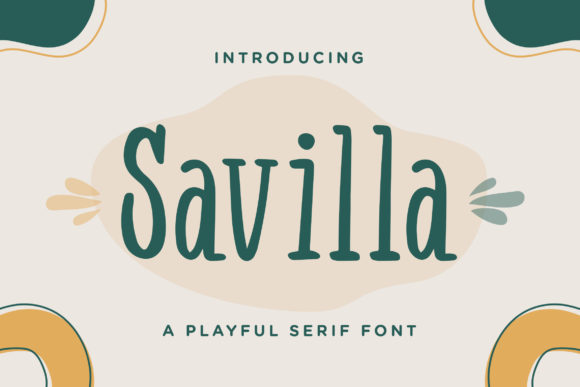
Step into the enchanting world of Savilla, a captivating serif font that will ignite your creativity and leave a lasting impression on all who behold it. Its exquisite curves and playful flourishes dance before your eyes, evoking a sense of wonder and delight. Whether you are a seasoned designer seeking to craft unforgettable movie posters or a DIY enthusiast eager to add a touch of elegance to your projects, Savilla is the perfect companion for your artistic endeavors.
With its timeless beauty and versatile nature, Savilla transcends the boundaries of traditional fonts. Its refined lines and delicate serifs lend a touch of sophistication to any design, while its playful undertones inject a spark of whimsy and charm. Whether you are creating invitations for a special occasion, designing social media posts that demand attention, or simply expressing your personal style, Savilla will elevate your words into a work of art.
As you delve into the depths of Savilla's character, you will discover a treasure trove of possibilities. Its ligatures dance harmoniously across the page, creating a seamless flow that guides the eye effortlessly through your text. The subtle variations in stroke width add depth and dimension, inviting the reader to linger and explore the nuances of each letterform. With Savilla at your fingertips, your creative potential knows no bounds.
Prepare to be captivated by the allure of Savilla, a font that will transform your designs into masterpieces. Its enchanting presence will draw your audience in, inviting them to immerse themselves in the beauty and wonder of your words. Let Savilla be your muse, inspiring you to create works of art that resonate with emotion and leave an indelible mark on the world.